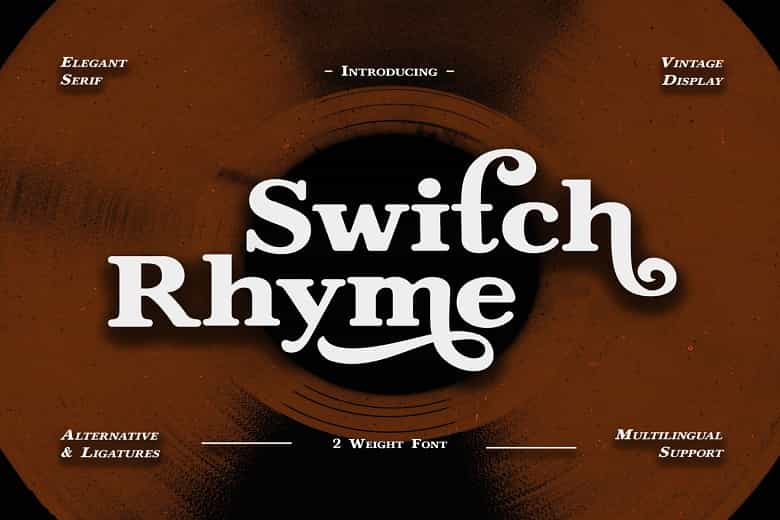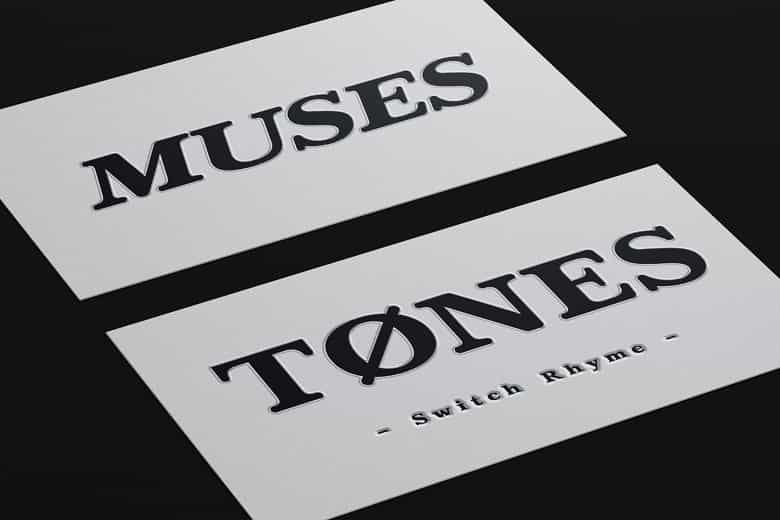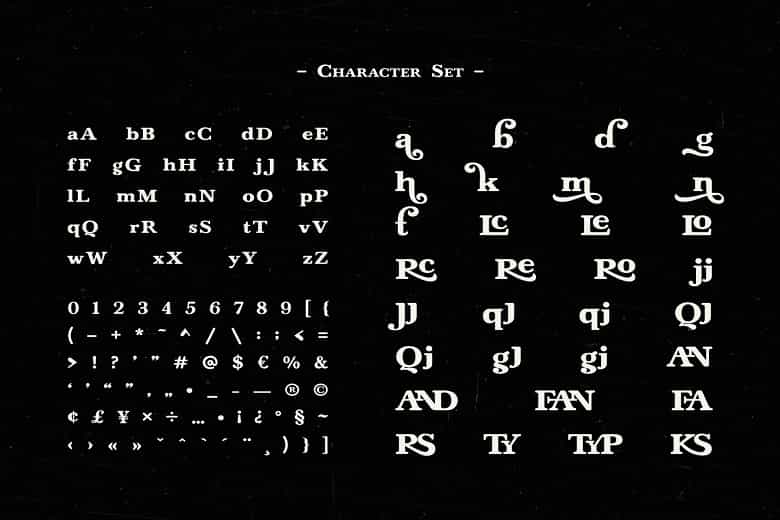
Switch Rhyme is an elegant serif font with modern vintage display style. The lettering is clean with elements of curvatures and relatively sharp edges on the serifs, giving the font a classic feel. The font is complemented by as well regular and italic styles that open up a wide range of possibilities for designers and their projects.